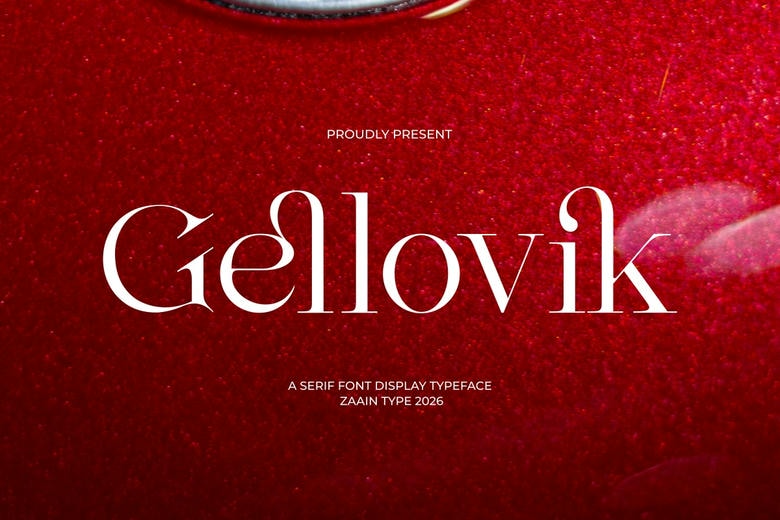
Gellovik Font
Gellovik is a modern serif font that blends classic elegance with a fresh, sophisticated style. Its balanced shapes and thoughtfully crafted letters bring a sense of luxury to any project.
Gellovik is a great choice for branding, editorials, fashion, cosmetics, wedding invitations, logos, magazines, and premium products. It gives your designs a polished look and helps them stand out, whether you use it for bold headlines or elegant text.
Gellovik Serif Font